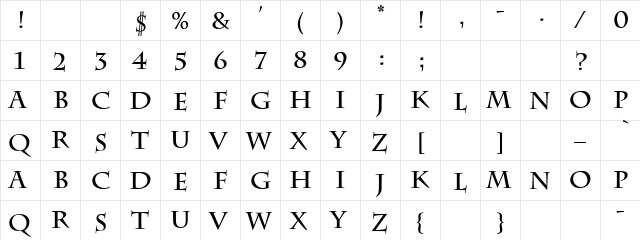
Basam Bold Bold
Design Context for Basam Bold Typeface
Basam Bold takes a measured approach to typography — its balanced proportions and neutral character make it a reliable workhorse for both digital and print work. Its bold stroke weight gives it real presence on the page.